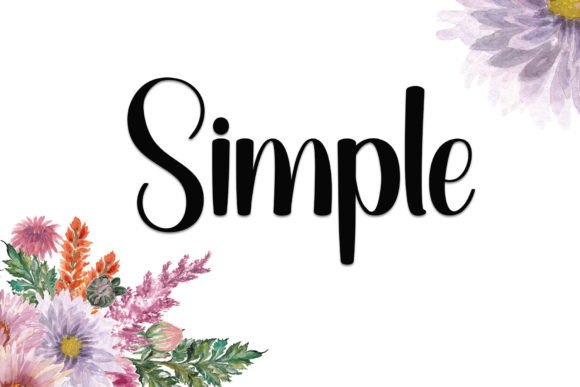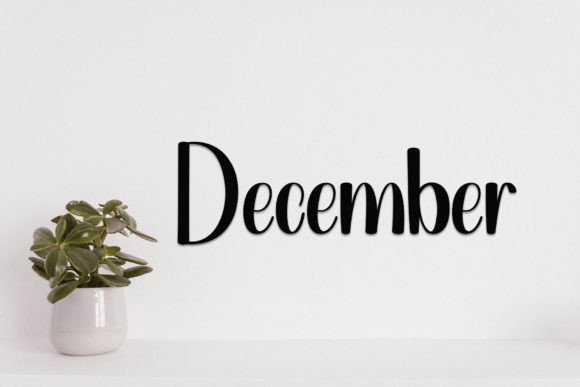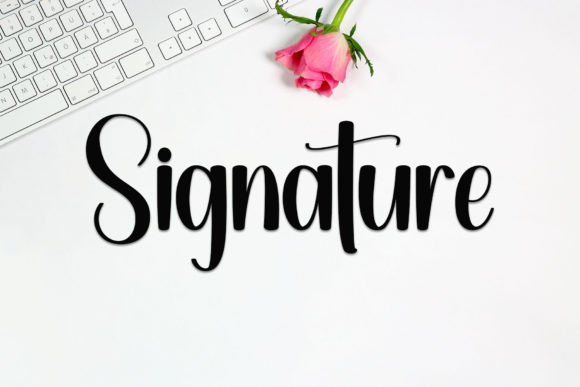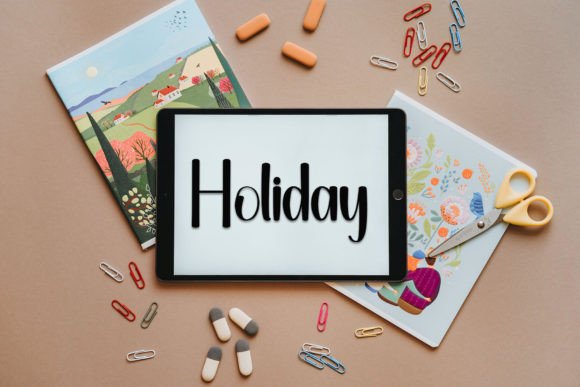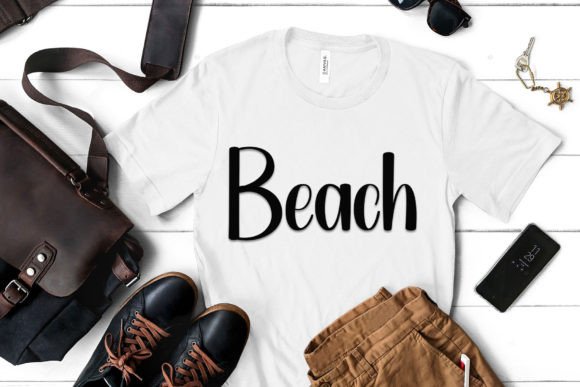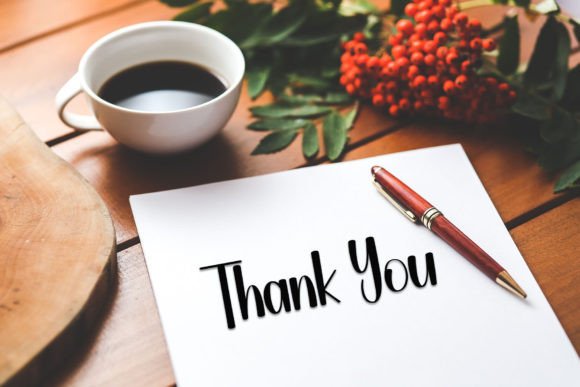
The Cactus Font: A Timeless and Elegant Addition to Your Design Arsenal
I’ll never forget the moment I stumbled upon the Cactus font. I was working on a project for a client who wanted a sophisticated, yet playful touch. I had spent hours scouring the internet for the perfect font, but nothing seemed quite right. That was until I saw Cactus – a beautiful, handwritten font that instantly caught my eye. Its elegant touch and distinct style won me over, and I knew I had found the perfect fit for my project.
- ✨ Elegant and refined: Cactus font boasts an undeniably sophisticated feel, perfect for projects that require a touch of class.
- ✅ Versatile: Whether you’re designing a logo, a poster, or a social media graphic, Cactus font adapts seamlessly to any project.
- 💫 Timeless style: This font’s classic look ensures it won’t go out of style anytime soon, making it a great investment for designers.
Of course, no font is perfect, and Cactus has a few minor quirks:
- 🤔 Limited use in very small sizes: While Cactus font looks stunning in most sizes, it can become a bit tricky to read when used in very small text.
- ⚠️ Some letter spacing issues: Occasionally, you might need to adjust the letter spacing to get the perfect look, but this is a minor tweak.
One of the best things about Cactus font is its range of OpenType features and glyphs. These allow you to customize your text with:
- Stylistic alternates: Swap out letters for alternate versions with a unique flair.
- Glyphs: Add decorative elements, like flourishes or swashes, to enhance your text.
Experiment with these features to create truly unique designs that showcase the Cactus font’s versatility.
The Story Behind Cactus Font
Legend has it that Cactus font was created by a talented designer who wanted to craft a font that would evoke the elegance of the desert landscape. Inspired by the intricate details of cacti, the designer poured their heart and soul into creating a font that would be both timeless and beautiful.
| What makes Cactus font so special? | Cactus font boasts an elegant, refined look that’s both timeless and versatile. |
| Is Cactus font suitable for body text? | While Cactus font is stunning in headlines and titles, it may not be the best choice for long blocks of body text. |
| Does Cactus font come with OpenType features? | Yes, Cactus font includes a range of OpenType features, glyphs, and stylistic alternates to enhance your designs. |